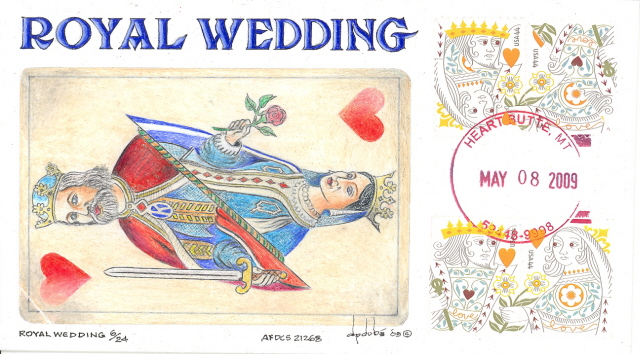
Okay, boys and girls, guys and gals, the Fontry has a freebe offer “for a limited time only.” Mr. Adkins in his infinite wisdom and generosity is giving away FHA Eccentric French. This font is from the suffering genius of Mr. Adkins and Mr. Smith (as seen on this board) based on the font published by Mr. Atkinson himself. Now, I know you folks don't spend a bunch of time in front of a computer (the whole hand lettering forum is a dead give away), but you never know when this might come in handy. Please, use it and enjoy. If you come up with any really cool designs with Eccentric, drop me an email. I'd love to see what you come up with.
I downloaded the image that you posted about a month ago. I used it for what you see here, as I've done with every other font I've looked at. I use a pencil for everything - and I really like this one.